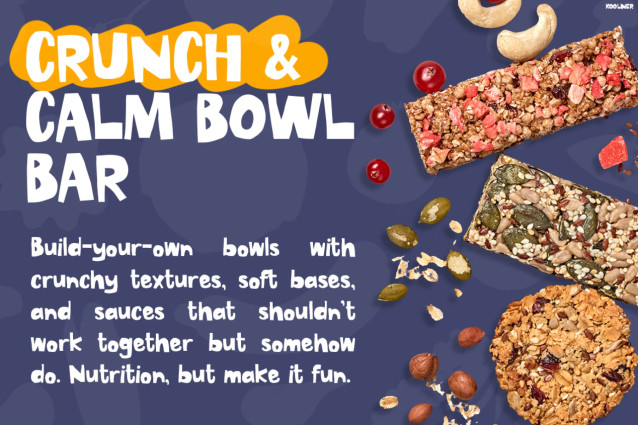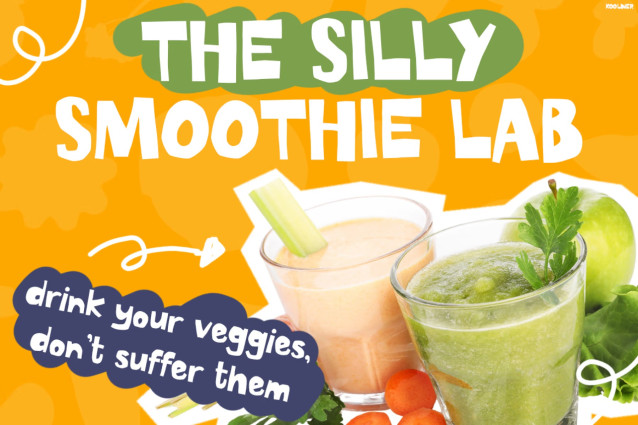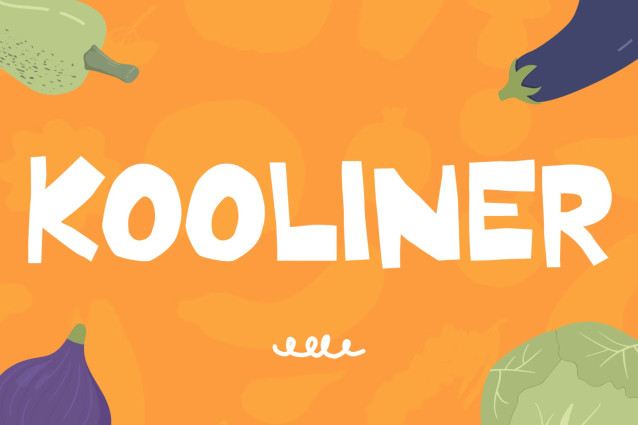
Kooliner Font
Instagram Font Kooliner is a playful display font designed to make food-related projects more engaging, memorable, and visually appealing. Not only does it feature bold handcrafted letterforms, but it also delivers a warm and friendly personality that instantly attracts attention. Moreover, its organic curves create a natural and approachable appearance. As a result, every design feels more inviting and energetic.
In addition, Kooliner maintains excellent readability, making it ideal for headlines and promotional content. Furthermore, the font supports 67 languages, allowing creators to communicate with global audiences effortlessly.